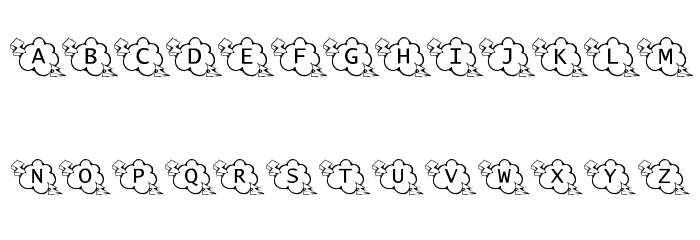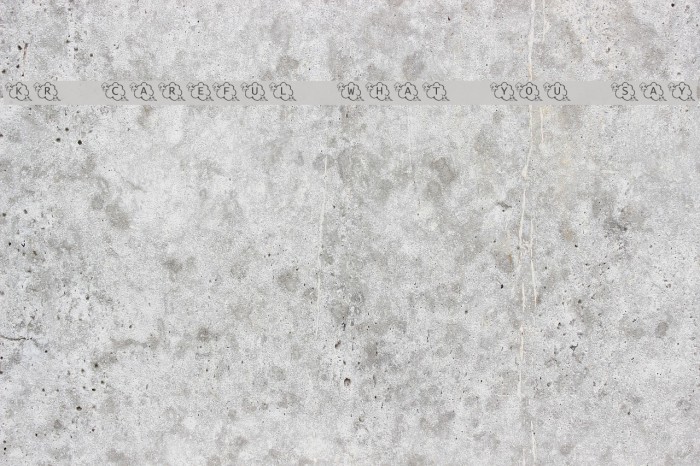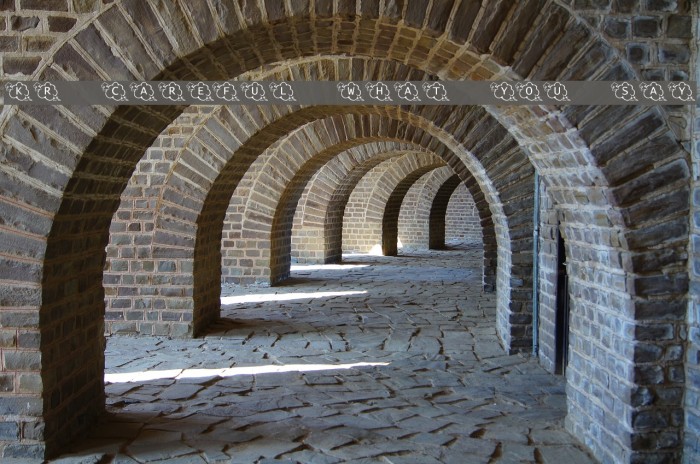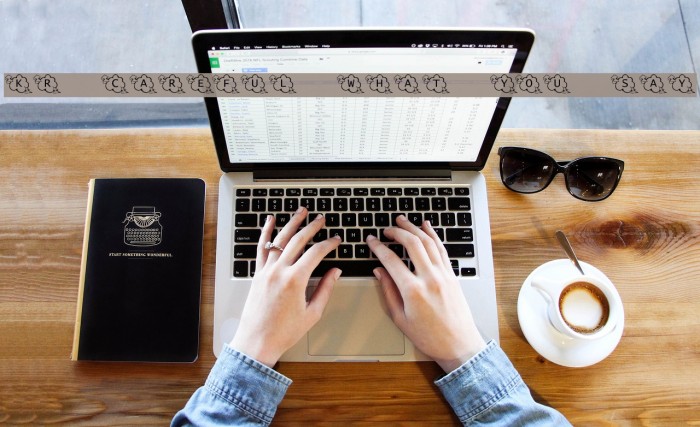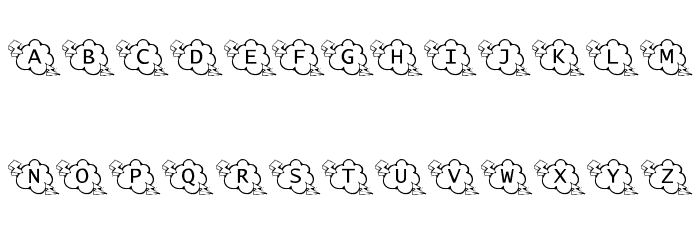
KR Careful What You Say! Font
This playful and decorative font features each letter encased within a cartoon-like cloud shape, giving it a whimsical and fun appearance. The letters are bold and clear, making them easily readable despite the intricate design surrounding them. The style is consistent across all characters, maintaining a uniform look that is both eye-catching and unique. The font's playful nature makes it ideal for creative projects that require a touch of humor or lightheartedness. The cloud motifs add a sense of movement and dynamism, making the font suitable for children's materials or any project aiming to convey a sense of fun and imagination.
A whimsical, cloud-encased decorative font perfect for playful designs.
• Proposed Projects: Ideal for children's books, playful posters, greeting cards, and any design needing a fun, imaginative touch.
• Overall Style: Playful, Whimsical